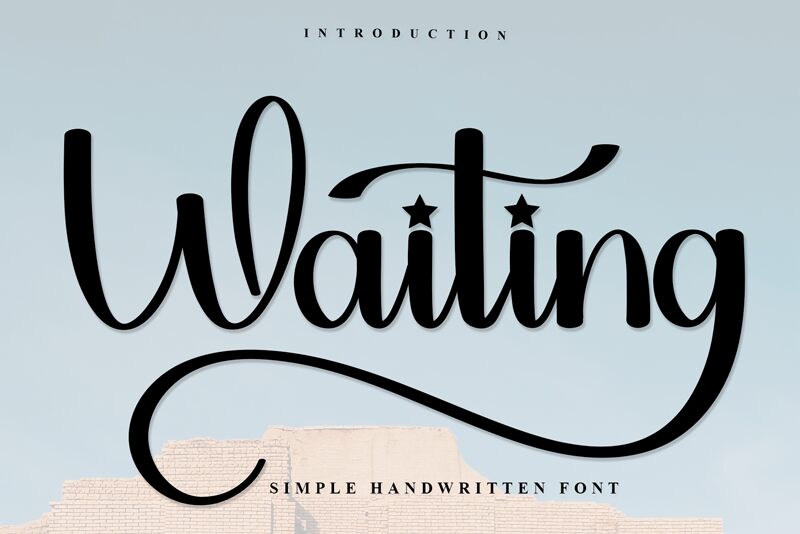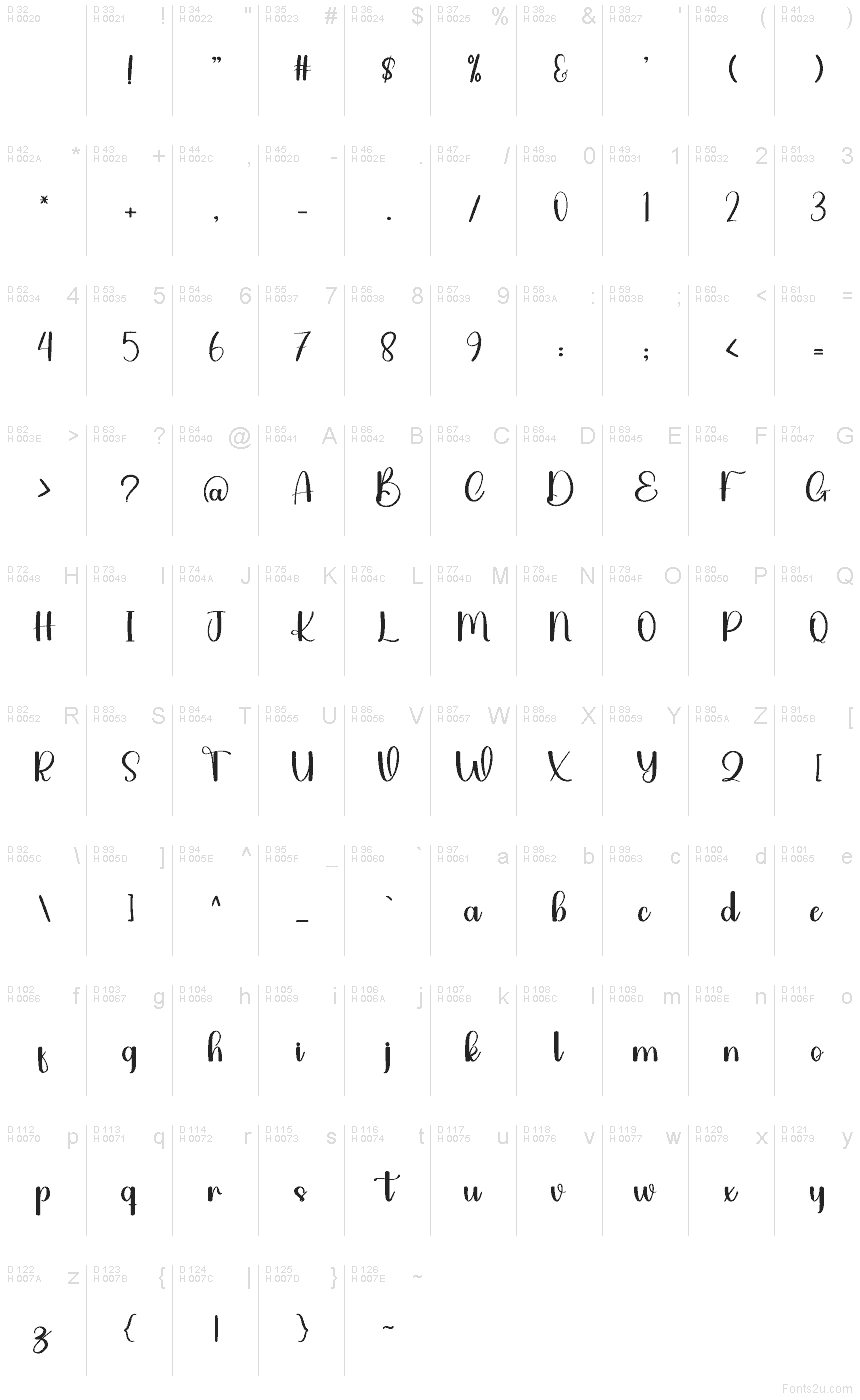
Waiting
Waiting font by Inermedia Studio is a free brush script typeface that fixes a common issue with hand-lettered styles: clarity. Its smooth, inky curves, rounded ends, and gentle bounce feel friendly and polished rather than messy, with a tall rhythm that reads cleanly at a glance. You get the warmth of a marker without scratchy texture or fussy swashes, so headlines pop and short phrases stay legible.
Using Waiting, you can craft boutique logos, bakery packaging, greeting cards, social posts, café signage, or product tags that feel personal and consistent. This free font holds a steady pace across words, making brand marks look unified and confident. Pair it with a neat geometric sans for body copy, and keep tracking snug to preserve its cozy flow.